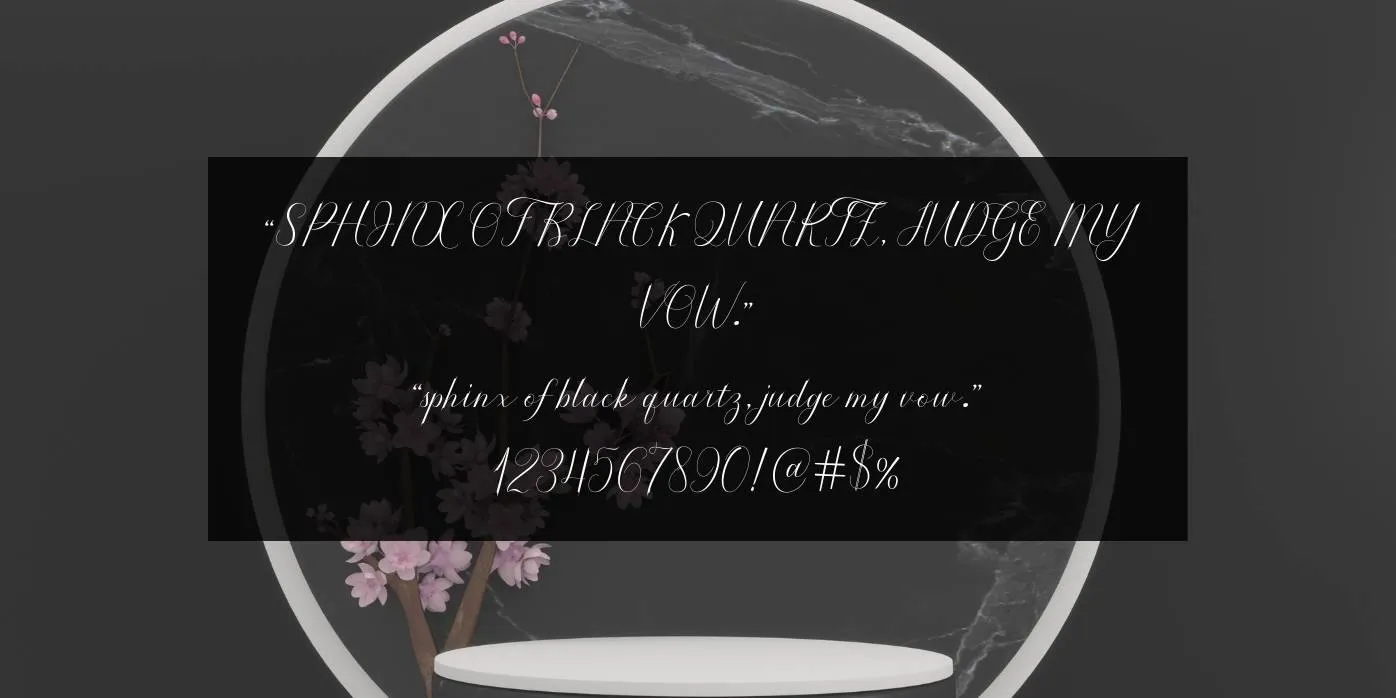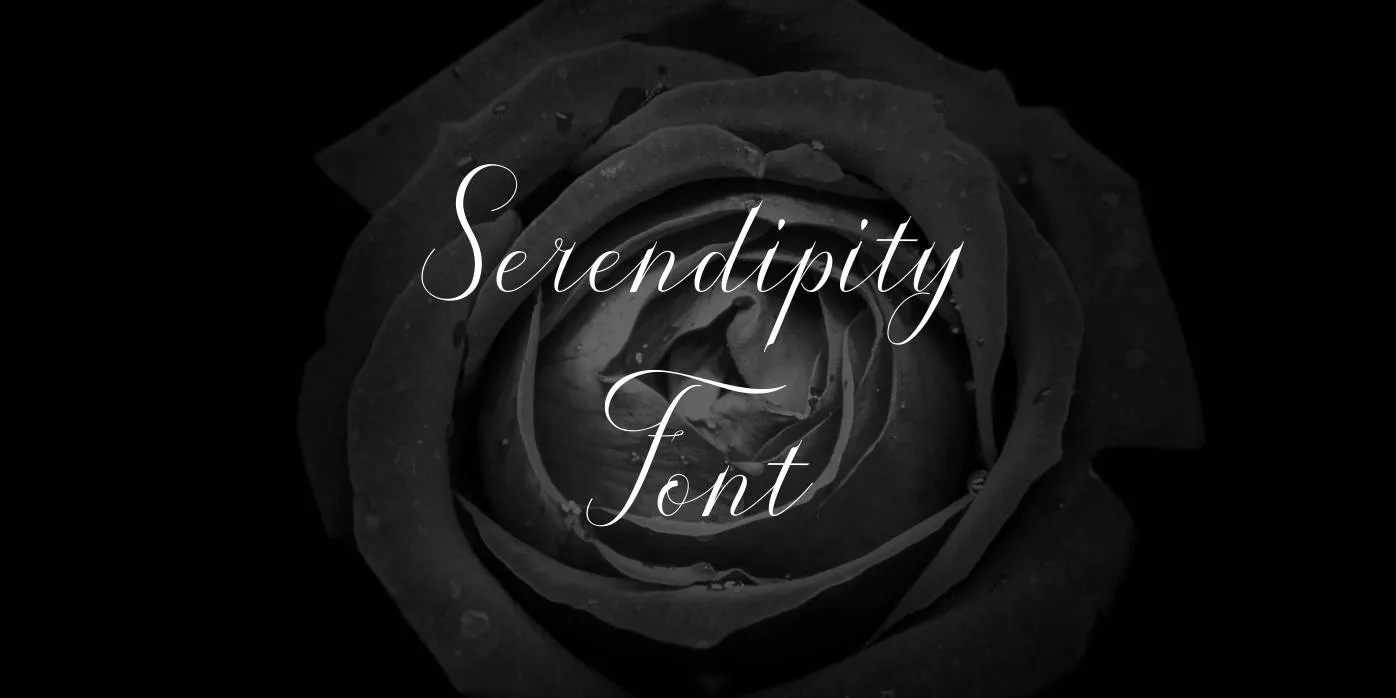
Serendipity Font
Today, we are going to present a marvelous typeface known as Serendipity Font. This typeface belongs to the calligraphy font family. This family was designed by Crop studio. It is a free font and is best for Adobe fonts.
Serendipity Font has a unique and attractive look. It is perfect for making headlines, titles, and logos. The letters are well-spaced and have a sharp appearance. This stunning family includes styles for regular, bold, and italic.
This family is available in three weights: light, regular, and bold. Each weight has 256 characters. You can also use its similar welcome font for more advanced features. The character set supports Latin, Cyrillic, and Greek languages.